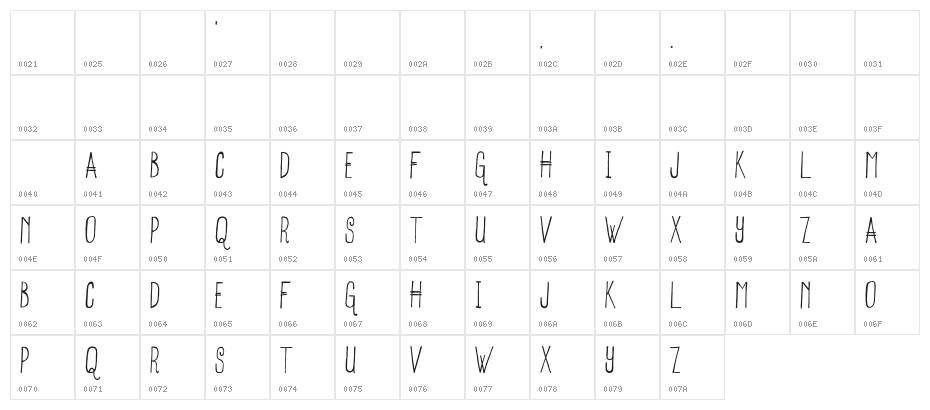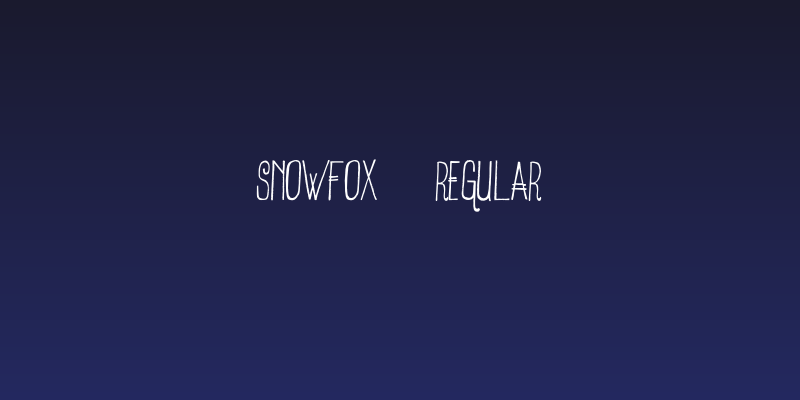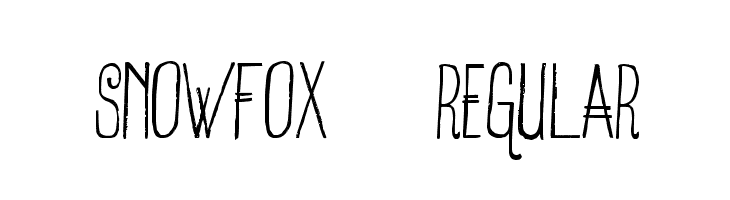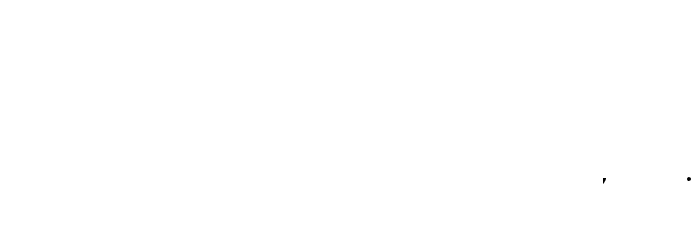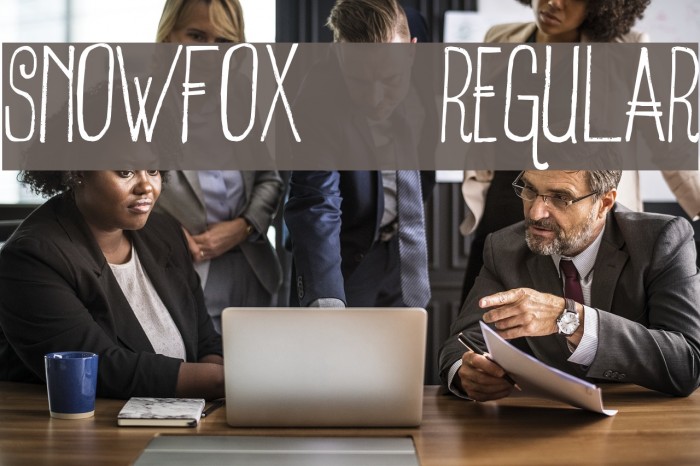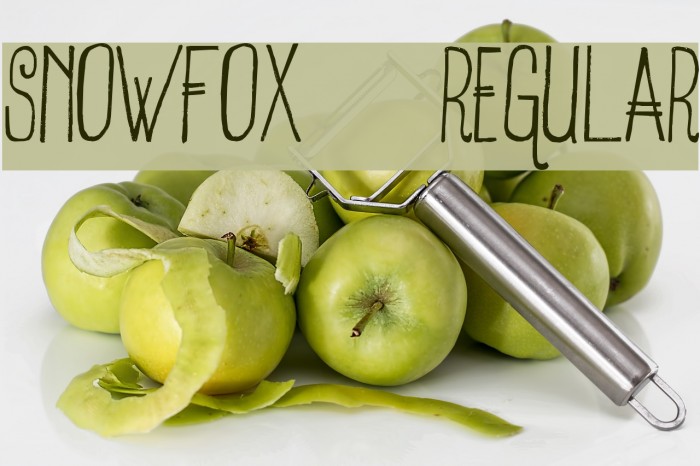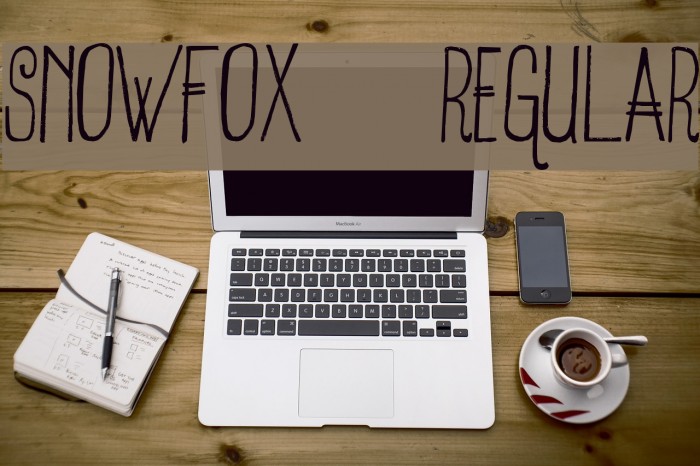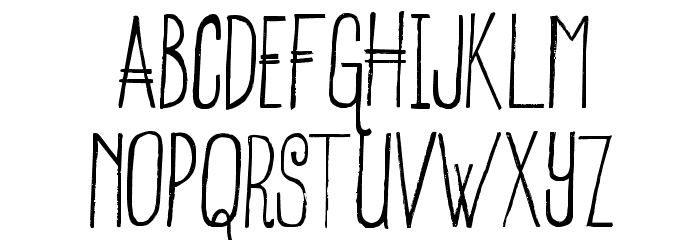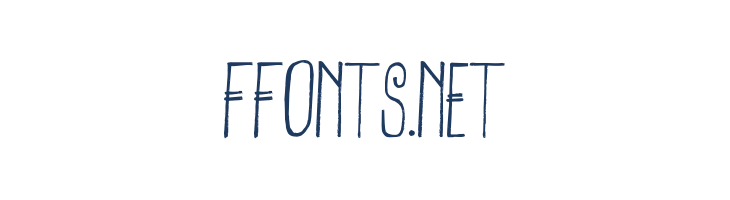
SnowFox-Regular Font
SnowFox-Regular Description
This font features a unique, hand-drawn aesthetic with tall, narrow characters that give it a distinctive and artistic look. The strokes are uneven, adding a rustic and organic feel to the text. The uppercase letters are particularly elongated, while the lowercase letters maintain a consistent height, creating a harmonious balance. The font's irregularities and slight imperfections contribute to its charm, making it ideal for creative projects that require a personal touch. The overall style is playful yet sophisticated, suitable for a variety of design applications.
| Proposed Projects | Ideal for creative projects such as posters, invitations, branding, and packaging design. |